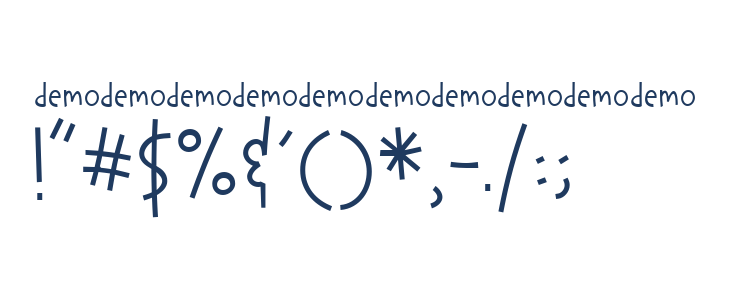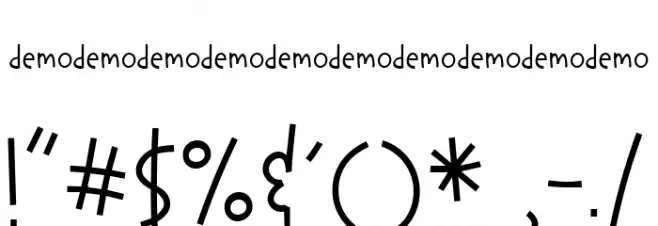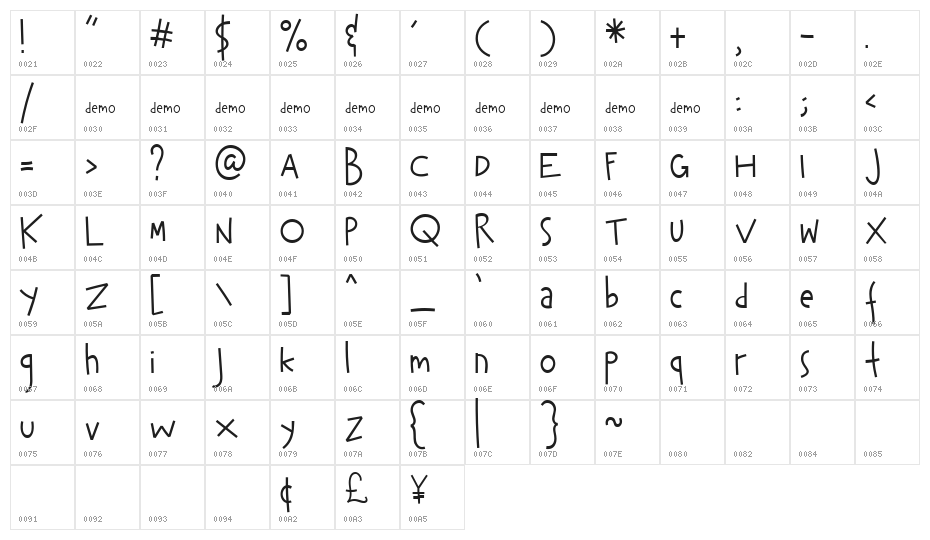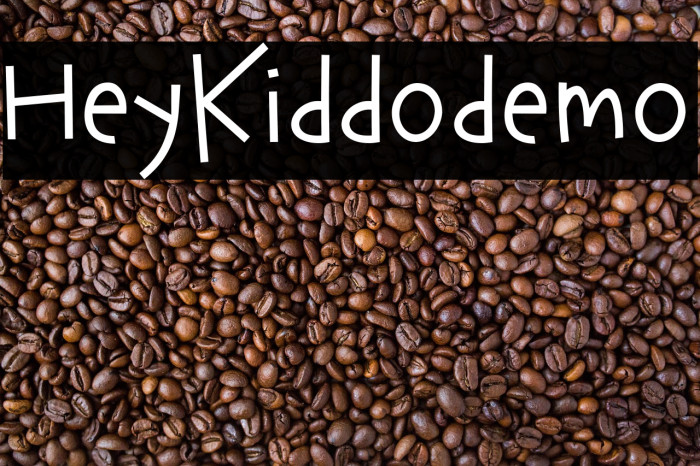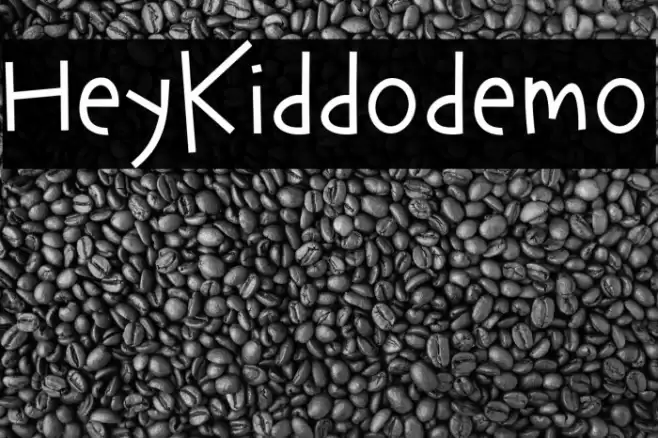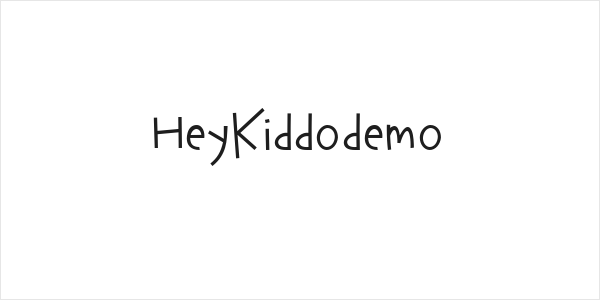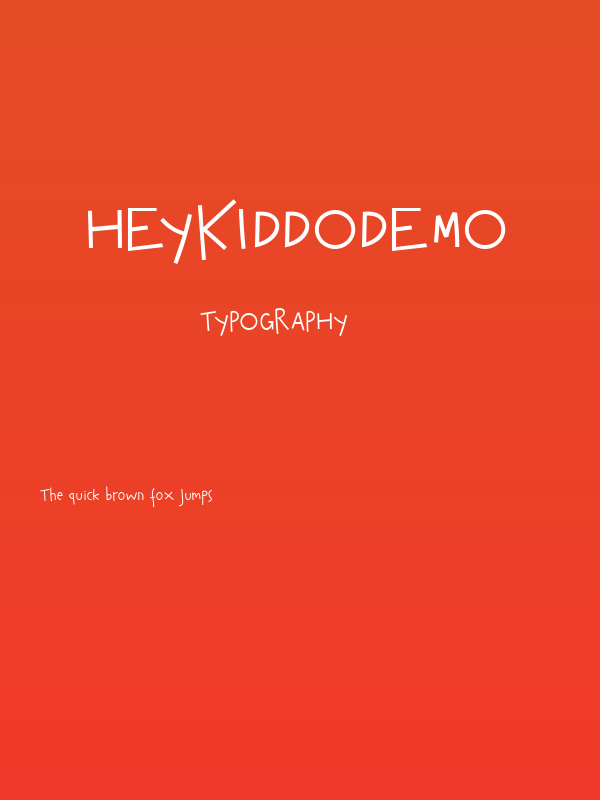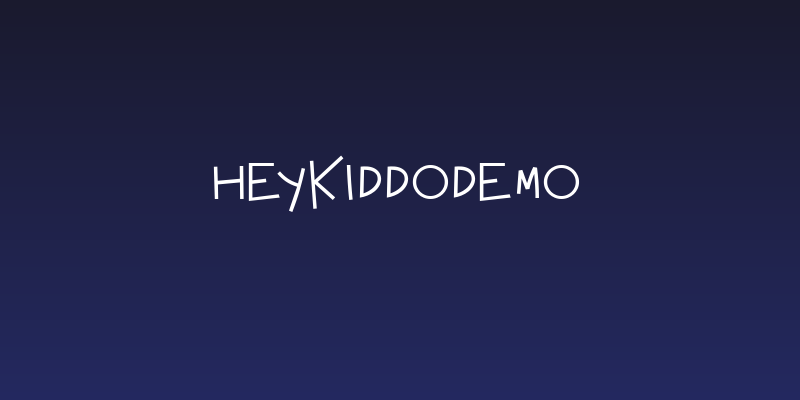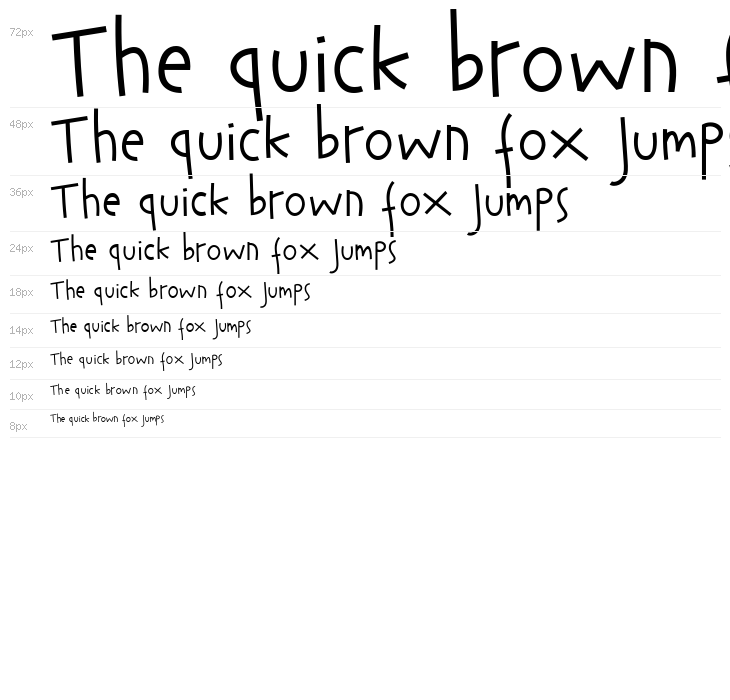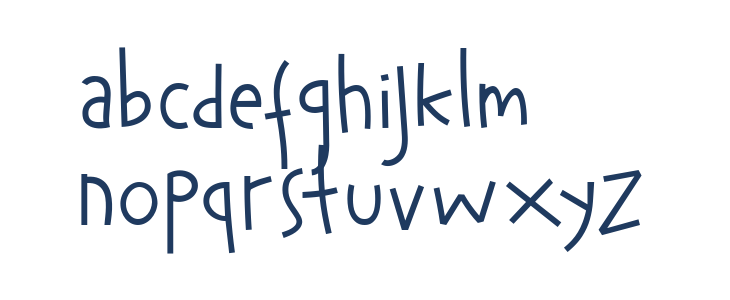
HeyKiddodemo Font
HeyKiddodemo Description
This playful and whimsical font features irregular, hand-drawn characters that convey a sense of fun and creativity. The uppercase letters are tall and slightly uneven, giving them a lively appearance. The lowercase letters maintain this playful style, with some characters like 'e' and 'g' having unique, quirky shapes. The numerals and special characters continue this theme, adding to the font's overall charm. The strokes are consistent in thickness, providing a uniform look despite the irregular shapes. This font is perfect for projects that require a casual and friendly tone.